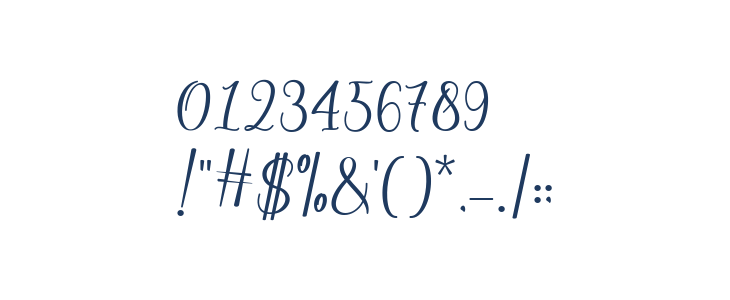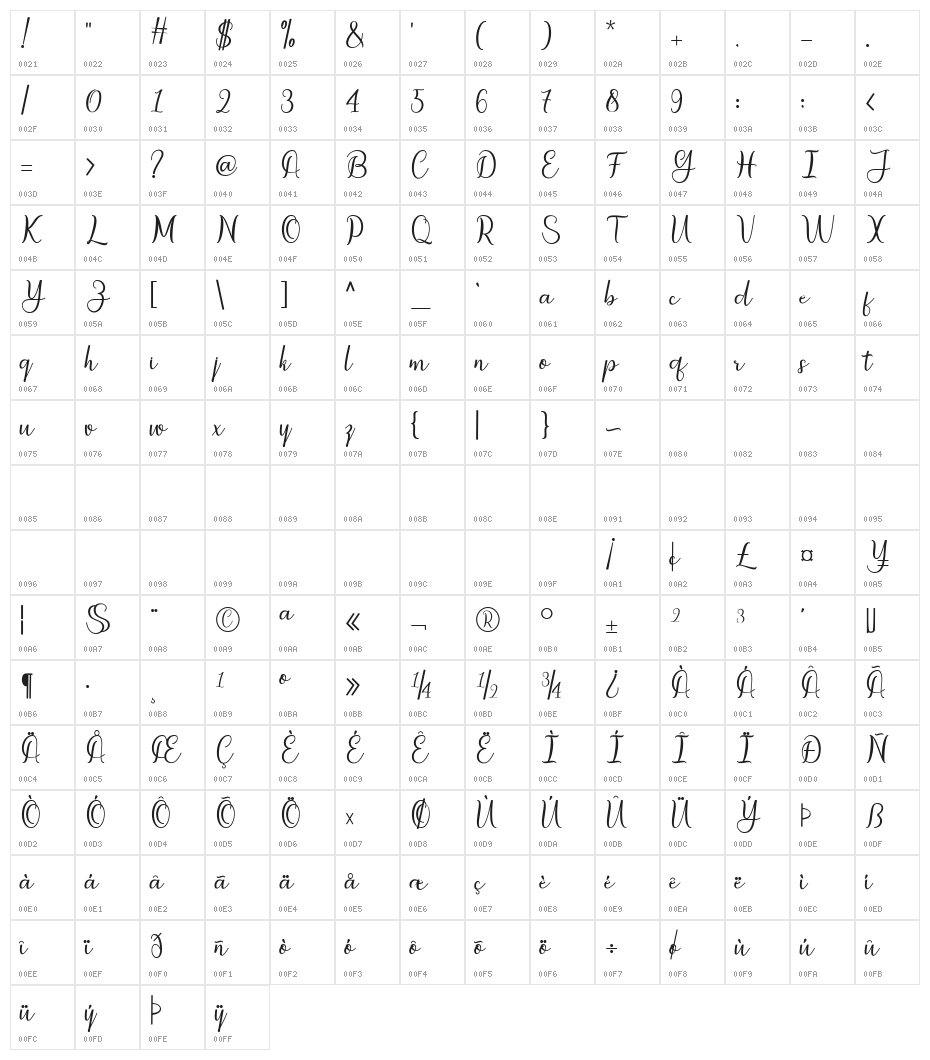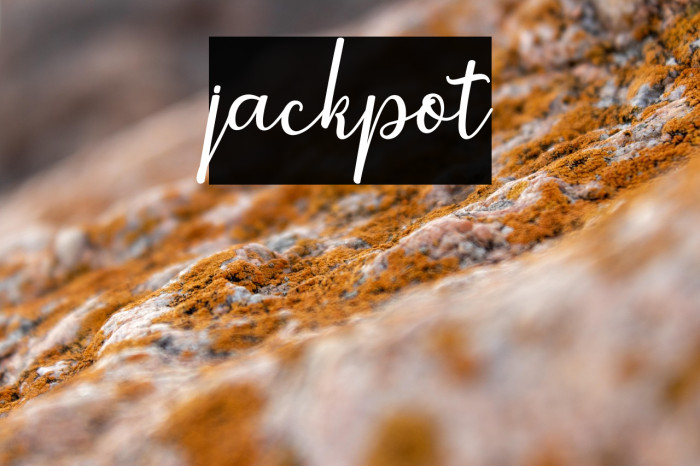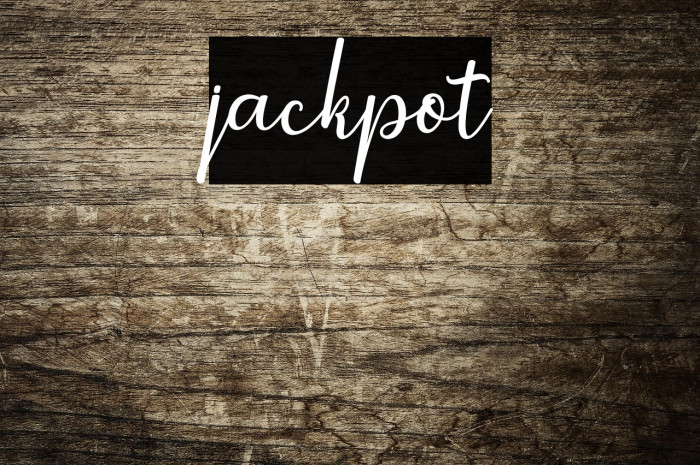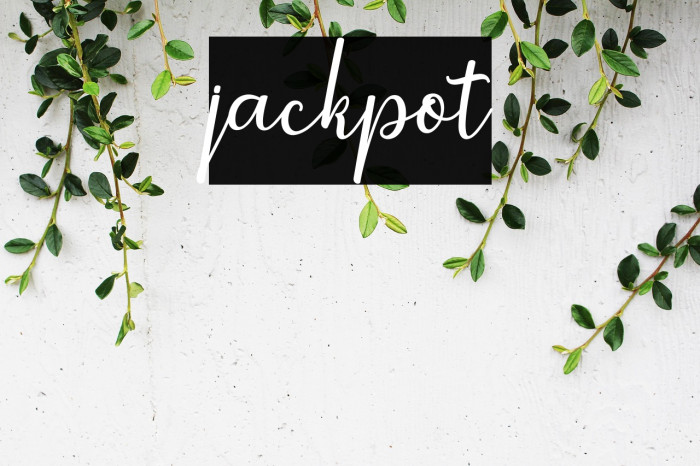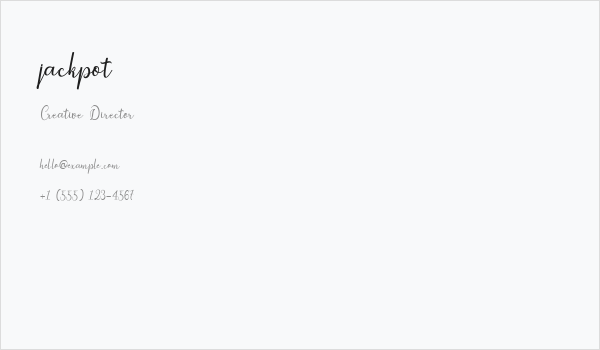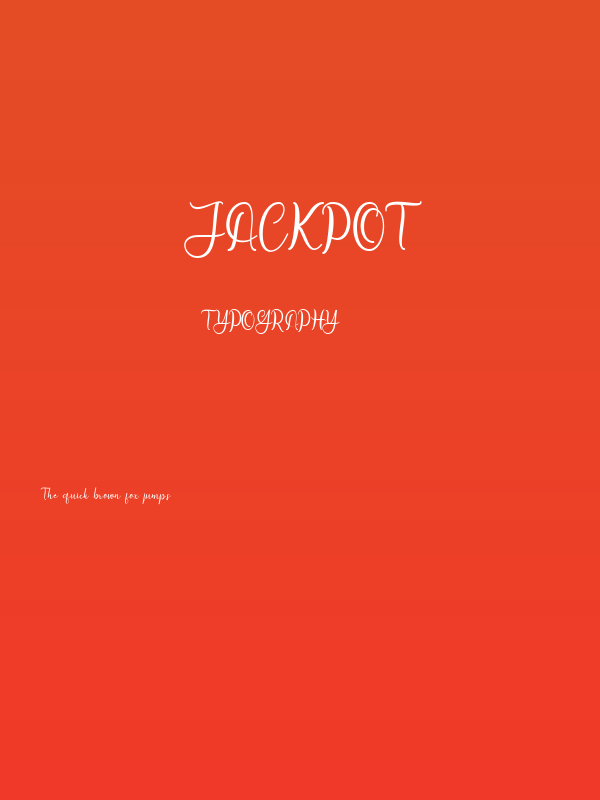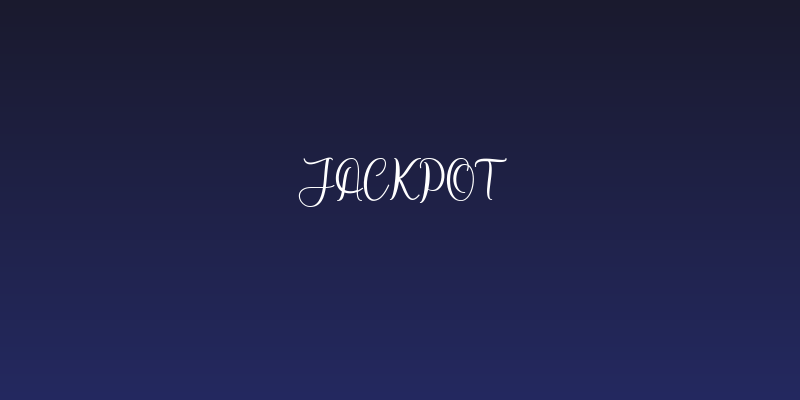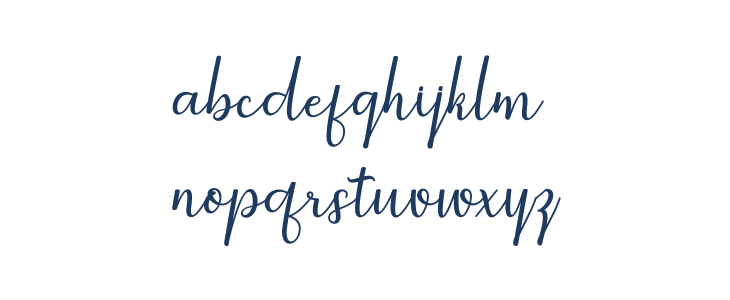
jackpot Font
jackpot Description
This font features a flowing, cursive style that exudes elegance and sophistication. The uppercase letters are characterized by their sweeping curves and loops, giving them a graceful appearance. The lowercase letters maintain a consistent flow, with some letters featuring distinctive loops and flourishes that add to the overall charm. The numerals are designed with a similar flair, ensuring they complement the alphabetic characters seamlessly. Special characters are crafted with attention to detail, maintaining the font's cohesive aesthetic. The overall design is both decorative and legible, making it suitable for a variety of creative applications.
| Overall Style | Elegant, Decorative |
| Proposed Projects | Ideal for wedding invitations, greeting cards, branding projects, and elegant packaging designs. |